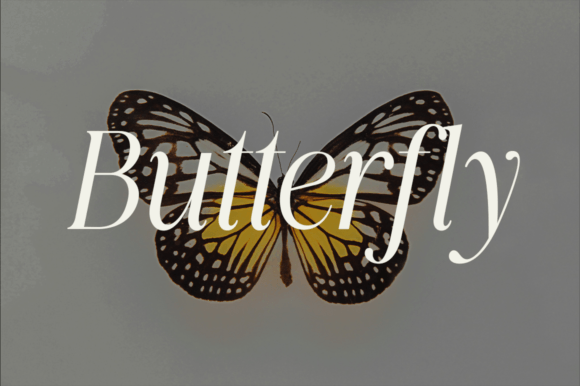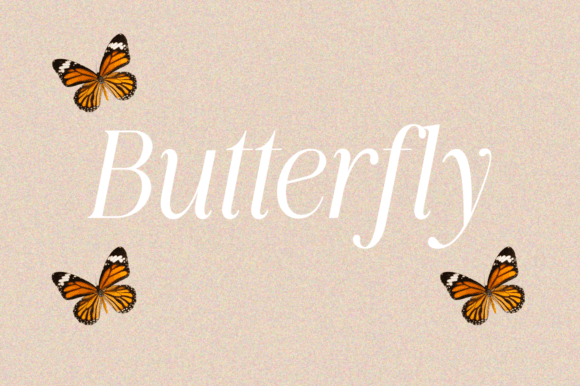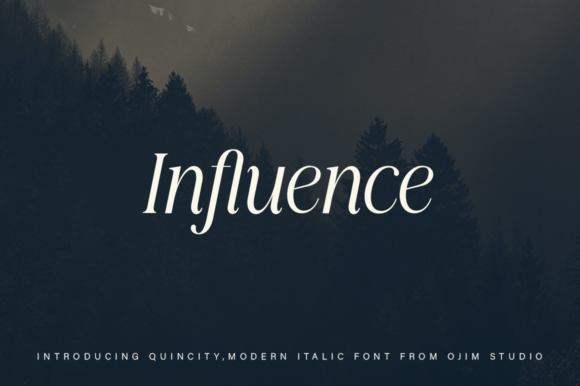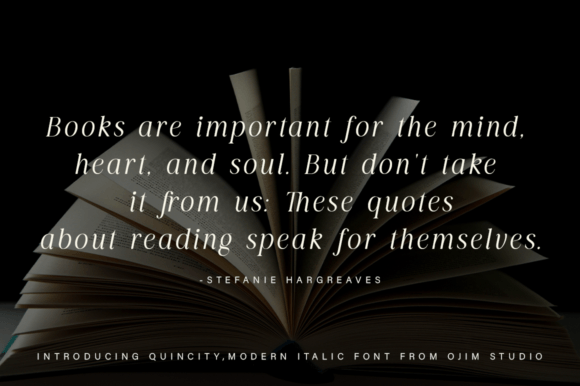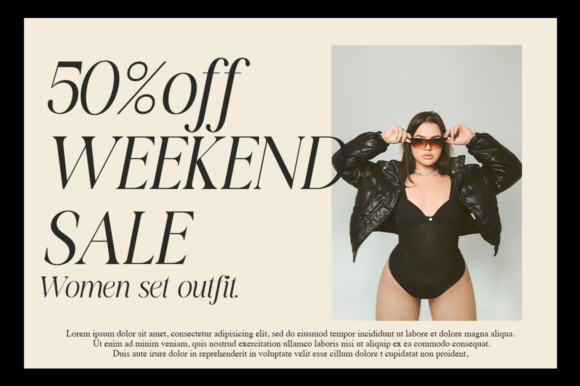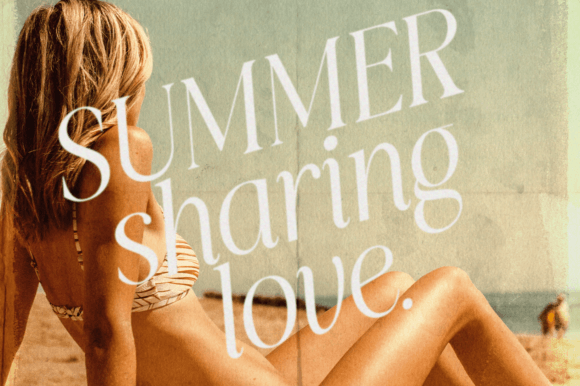
Introduction to Quincity Font
Have you ever been captivated by a single phrase or word that sparks a creative obsession? For me, it was a brief italicized phrase on a 18th-century type specimen broadside. The intricate details and elegant curves of that phrase transported me to a world of typography and design. It was the starting point of my journey to create the Quincity Font, a modern serif typeface that embodies the timeless elegance of the past.
As a designer, you’re constantly on the lookout for high-quality design resources to elevate your creative projects. That’s where the Quincity Font comes in – a free download that’s perfect for adding a touch of sophistication to your designs. With its transparent background and versatile style, this font is an excellent choice for designers seeking a unique and classy look.
Key Features of Quincity Font
- High-quality, modern design ideal for creative projects and design resources.
- Supports transparent background, allowing for seamless integration into various design elements.
- Unique characteristics and stylish typography make it a standout design resource for creative projects.
Honest Review: Quincity Font
As a designer, I’m always on the lookout for high-quality design resources to elevate my creative projects. Recently, I stumbled upon the Quincity Font, and I’m excited to share my honest review with you.
- ✨ The font’s modern and sleek design makes it perfect for minimalist and contemporary projects.
- ✨ It’s incredibly versatile, with a wide range of applications, from logos to body text.
- ✨ The transparent background feature allows for seamless integration with any design element.
- ⚠️ The font may not be suitable for projects requiring extreme legibility, as the letters can appear somewhat condensed.
Overall, I’m impressed with the Quincity Font’s high quality and versatility. While it may have some limitations, it’s definitely a great addition to any designer’s toolkit. With a little creativity, you can achieve some amazing results with this design resource.
Common Use Cases for Quincity Font
Quincity Font is suitable for a wide range of creative projects, including logos, branding materials, and marketing materials. Its unique characteristics make it an ideal choice for designers looking to create a distinctive and memorable visual identity.